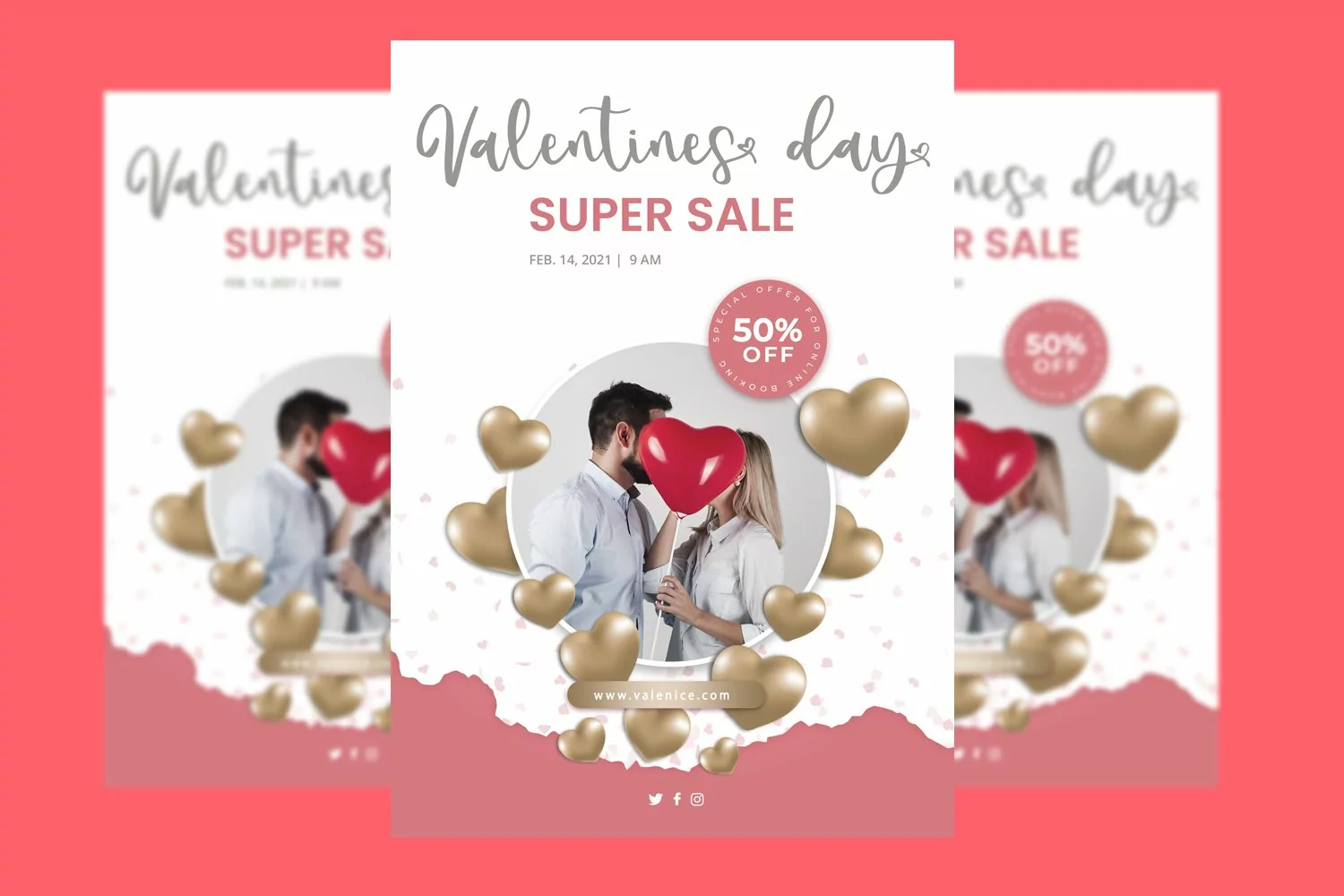
Hearttorb - Love Font that contain lowercase, uppercase, symbol, and also support multi language. There’s a lot ligatures in this font. This Font also comes with ligatures, alternates and many more. this font suitable for fashion, branding, catalog and other design what you want.
Hearttorb